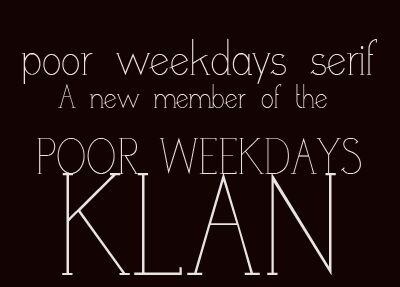
Poor Weekdays Serif by Roland Huse is a free light serif font with tall, slender letters and a distinctly airy silhouette. Fine strokes shift gently in width, with crisp serifs and broad rounded curves keeping the design elegant rather than severe. The spacing feels calm and measured.
Magazine mastheads are its clearest setting, especially for fashion, culture, or literary publishing that favors restrained typography. Its slim profile also suits fragrance packaging and boutique branding, where the delicate lines suggest refinement. In poster design, the long verticals and sweeping bowls can echo architectural photography or fine linear illustration.
This is a serif version of the “poor weekdays” fonts.